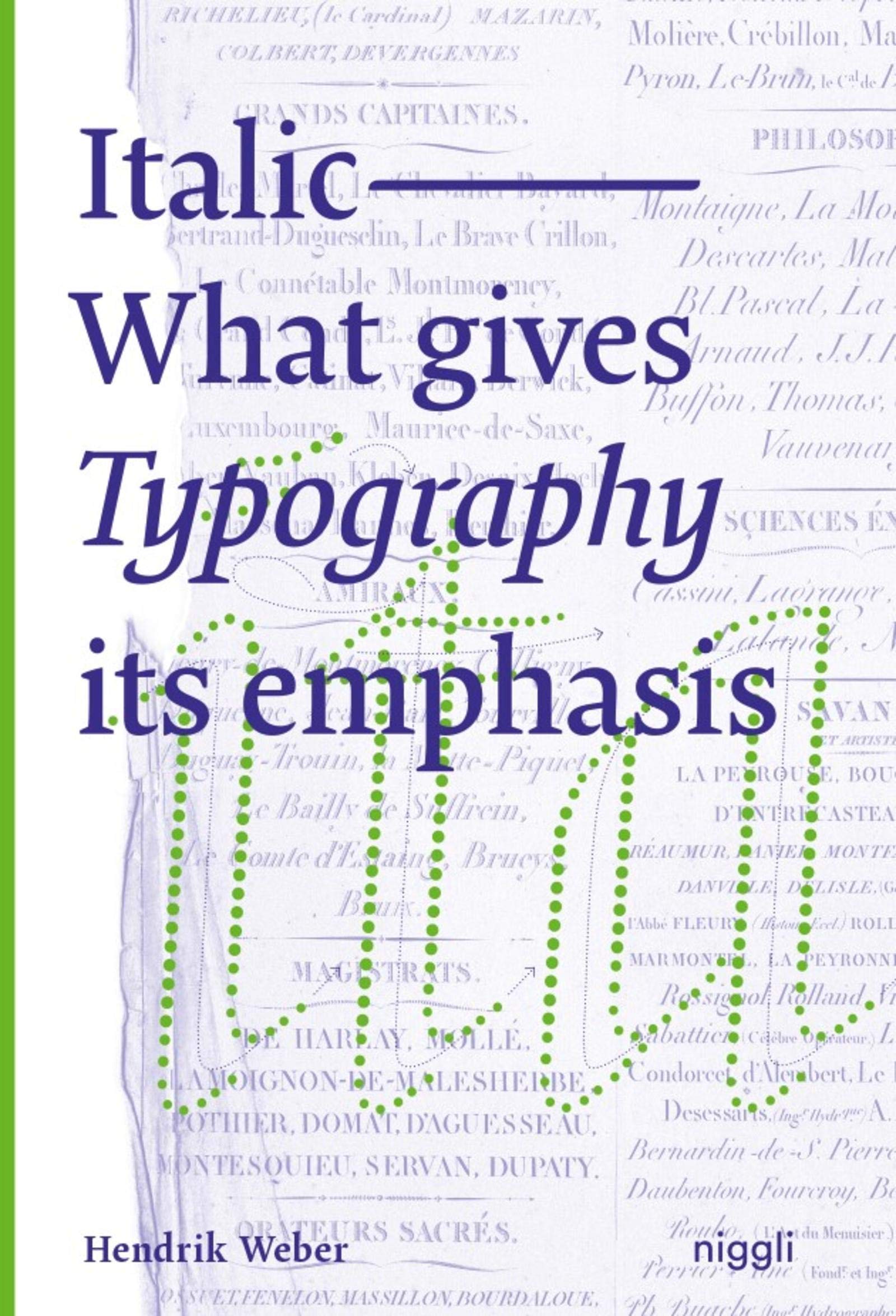
Italic: What gives Typography its emphasis
The use of italic letters as means of accentuation has become common practice in the digital age. They convey movement and dynamics, address the emotional experience of reading and remind of handwriting. However, this lively characteristic, which once re-sulted from the movement of the hand, is noticeably lost when words are simply tilted by a mouse click.
To impart knowledge about this typo-graphic feature and to find a general definition as writing style, the author has compiled style patterns to examine the tangible forms, characteristics and functions of “italic nature”. Furthermore, he deals intensively with the historical development of italics from handwriting to digital typesetting. This monograph is the first detailed treatise on this topic, and is aimed at all those who deal with letters professionally or privately